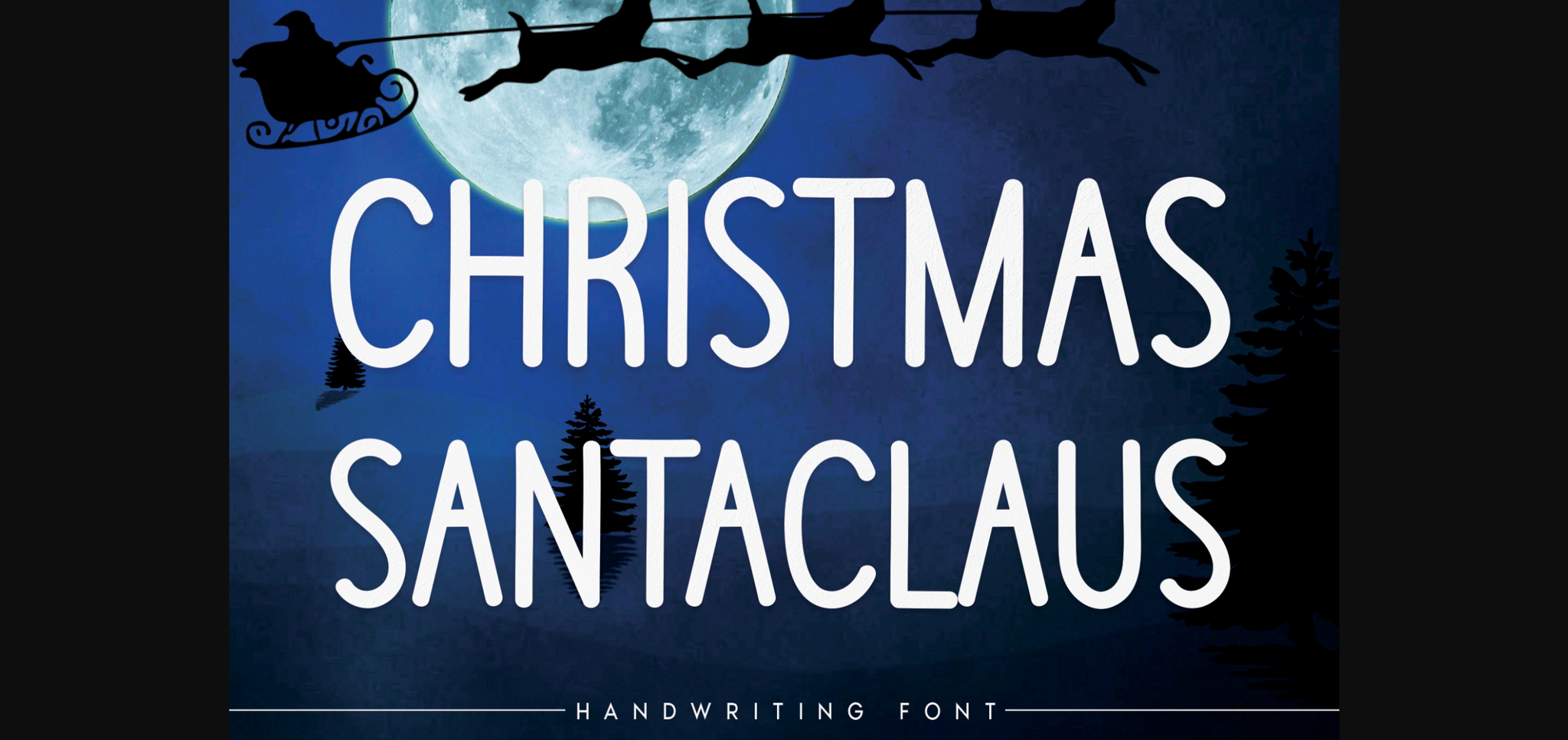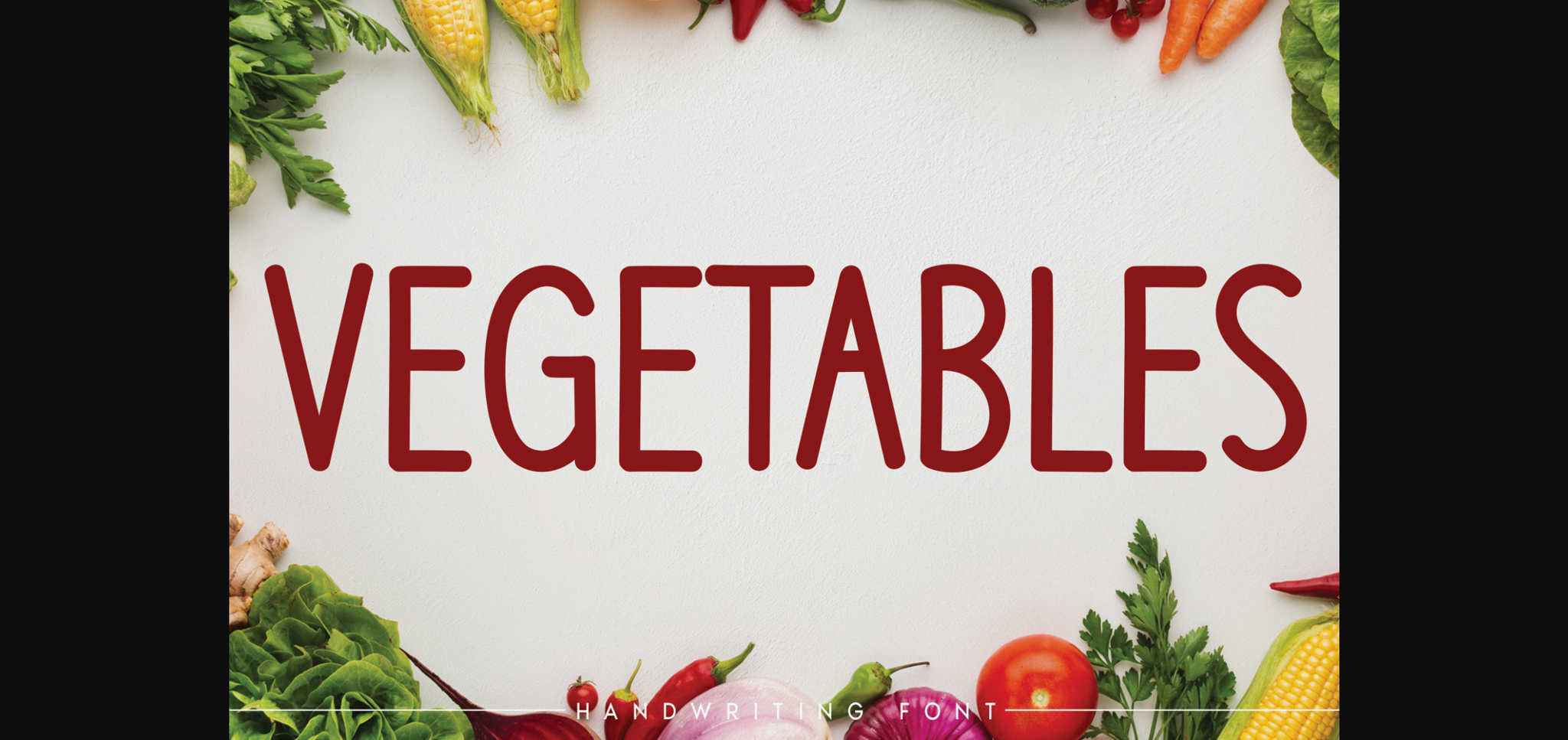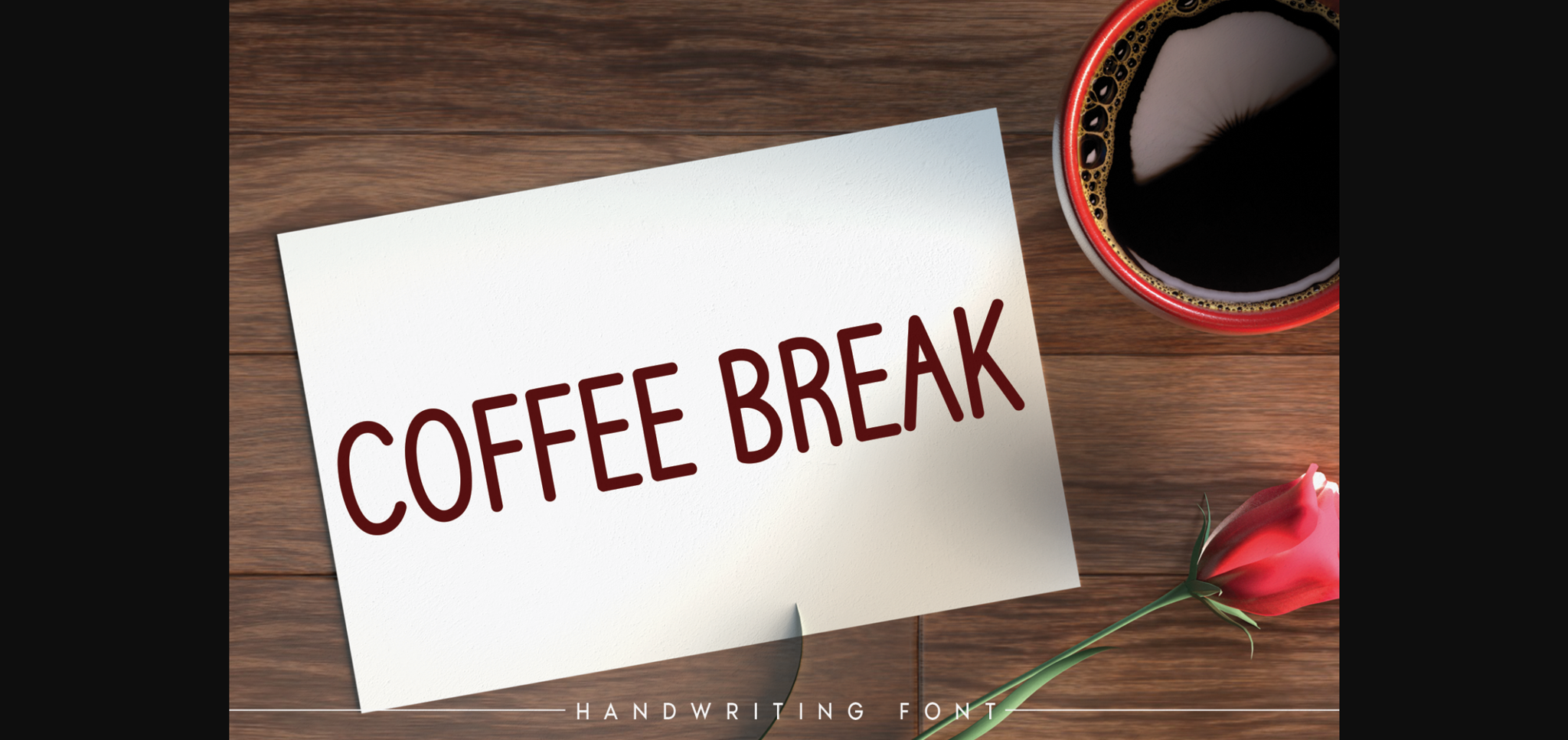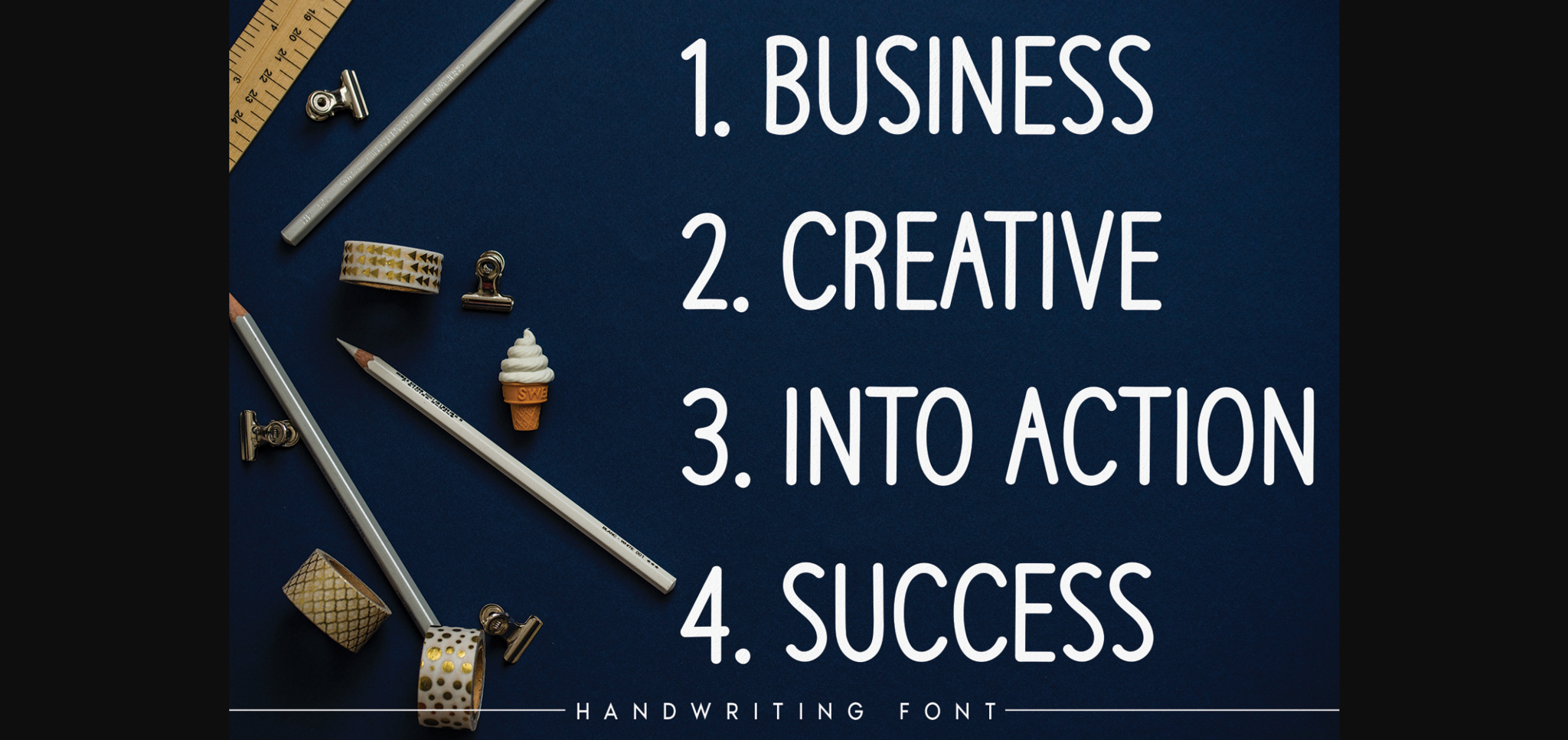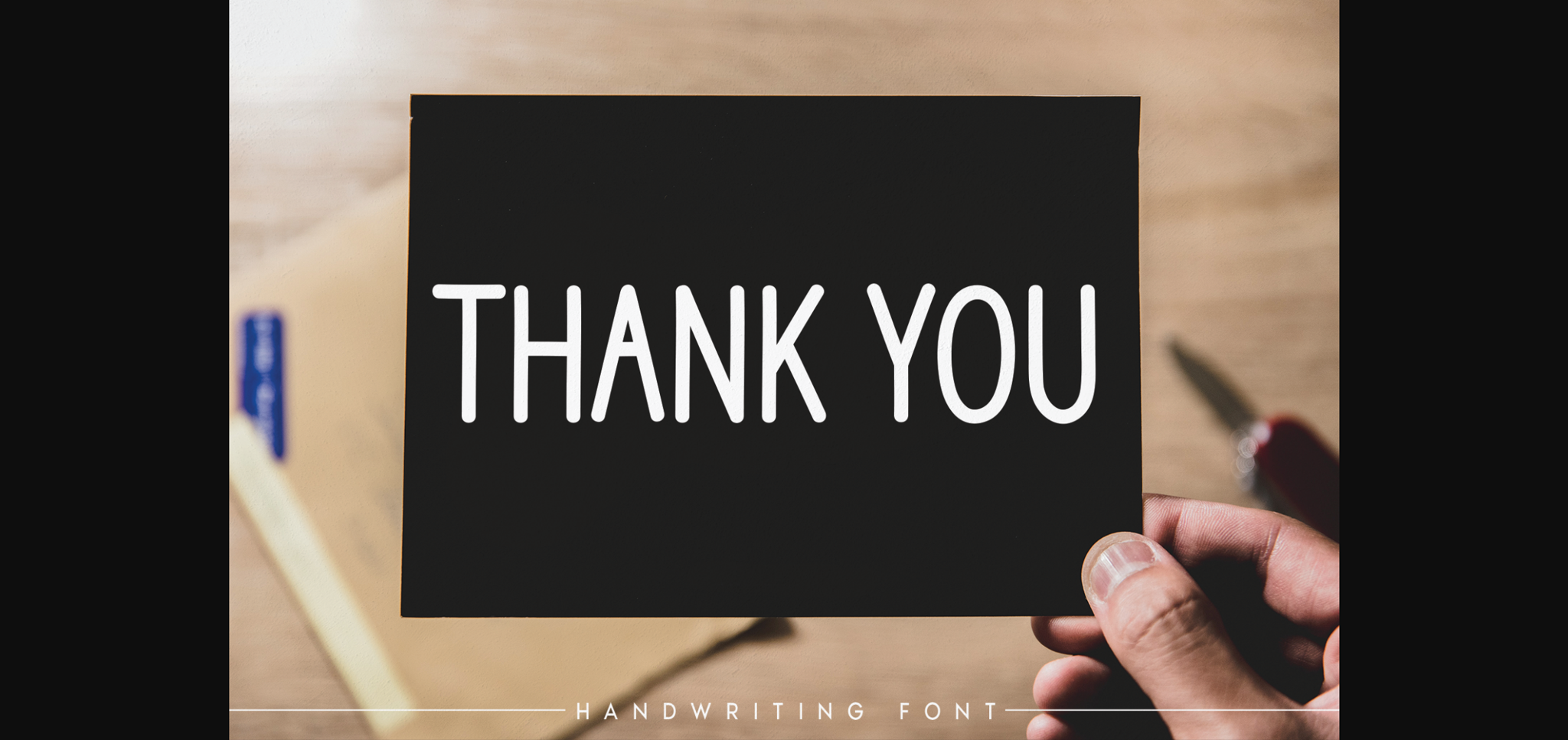
Christmas Santa Claus Font
About Christmas Santa Claus Font
Christmas Santa Claus is a simple and natural sans serif font. Not too thin and not too thick, balanced and varied, Christmas Santa Claus was designed to enhance the beauty of your projects.